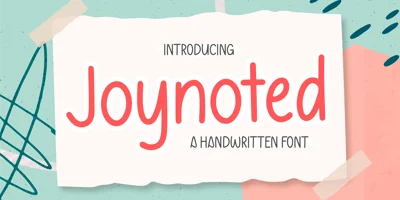
Joynoted Font
Joynoted Font is perfect for celebratory event design, joyful greeting cards, happy birthday invitations, festive party promotions, cheerful children's brands, uplifting social media content, positive lifestyle marketing, and heartwarming community communications. This delightful typeface brings pure happiness, celebratory energy, and infectious optimism to any project requiring typography that communicates joy, celebration, and the uplifting spirit of life's most precious moments and positive experiences.
What makes Joynoted Font exciting is its extraordinary ability to radiate pure joy through letterforms that seem to dance with celebratory energy and bubble with infectious enthusiasm. The font features playfully bouncing character shapes with cheerful proportions, optimistic spacing that creates visual celebration, and delightful details that evoke the spontaneous happiness of children's laughter and festive gatherings. Its joyful character embodies the essence of celebration and positive emotions, making it perfect for brands that want to communicate happiness, positivity, and the irresistible appeal of genuine joy and celebratory spirit.
The Joynoted Font family typically includes regular weight with cheerfully designed uppercase and lowercase letters, celebratory numerals, and comprehensive punctuation marks that maintain the font's joyful energy and festive appeal. The design emphasizes pure happiness while providing practical typography options for contemporary celebration and positive communication applications that require both emotional impact and readable functionality.
Whether you're creating celebration brand identities or developing joyful marketing materials, Joynoted Font provides unmatched celebratory authenticity and joyful appeal. This typeface excels in applications where its happy character can instantly uplift spirits and create emotional connections with audiences seeking positivity. Its festive aesthetic makes it particularly effective for event planners, children's brands, and celebration-focused businesses that want to communicate pure joy and positive energy. The font's uplifting presence helps establish emotional happiness while ensuring memorable recognition through typography that celebrates the beautiful essence of Joynoted Font human joy and celebratory spirit.